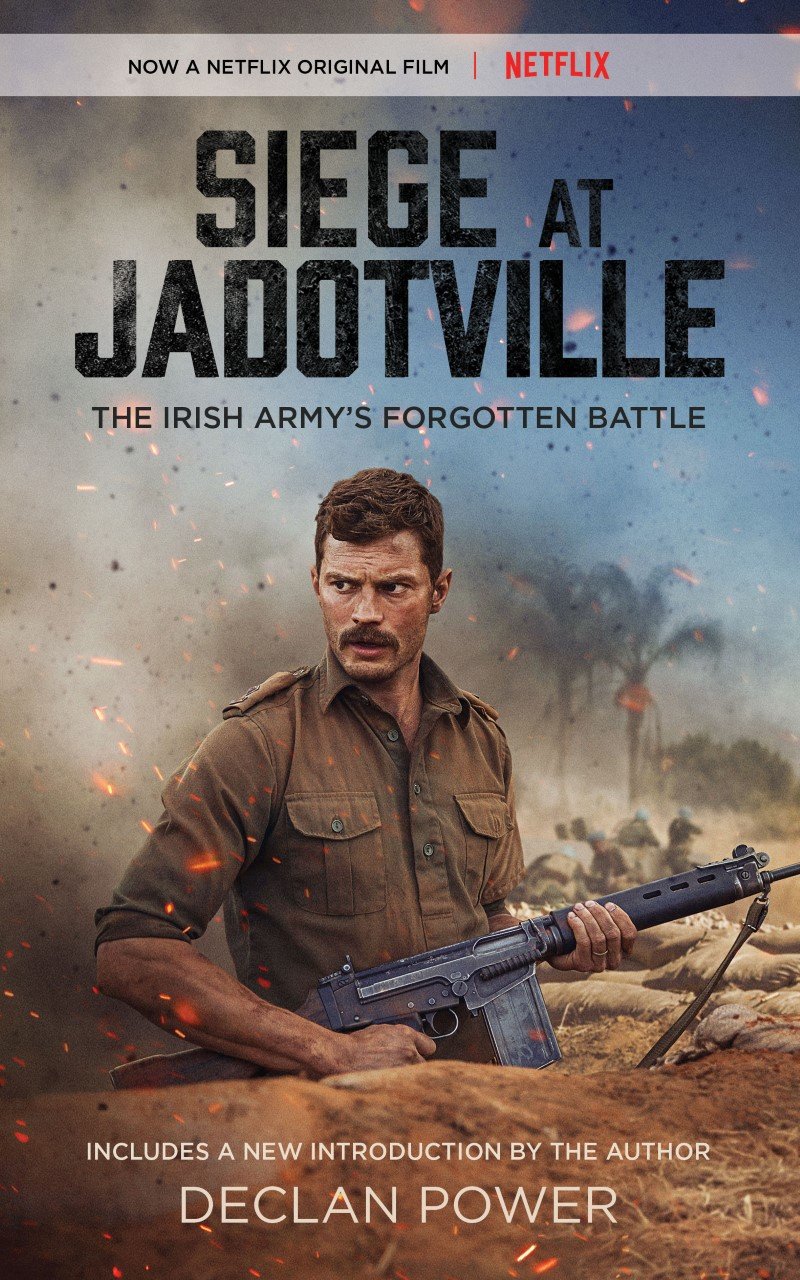
The Siege at Jadotville Font
BookThe Siege at Jadotville: The Irish Army’s Forgotten Battle is a historical non-fiction book that tells the story of an Irish UN peacekeeping unit that was besieged by a much larger Congolese force during the Congo Crisis of 1961.
The Siege at Jadotville: The Irish Army’s Forgotten Battle title on the book cover uses a vintage sans-serif font called Prohibition. Designed by Mattox Shuler based on wartime posters and industrial factories. The font comes with an oblique variant for each of its four styles, Regular, Rounded, Rough, and Lines.